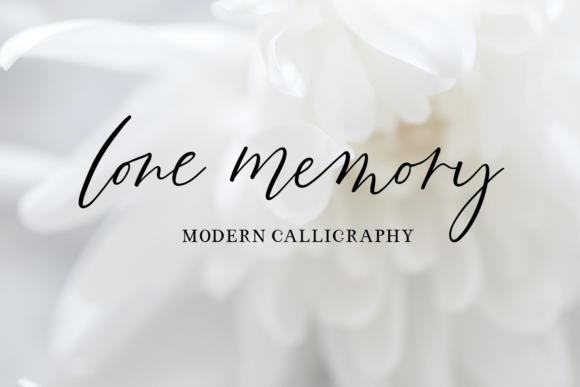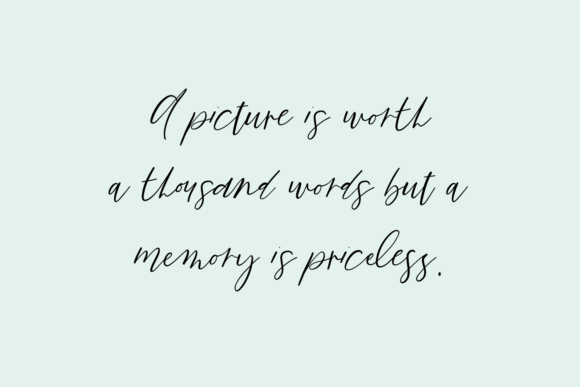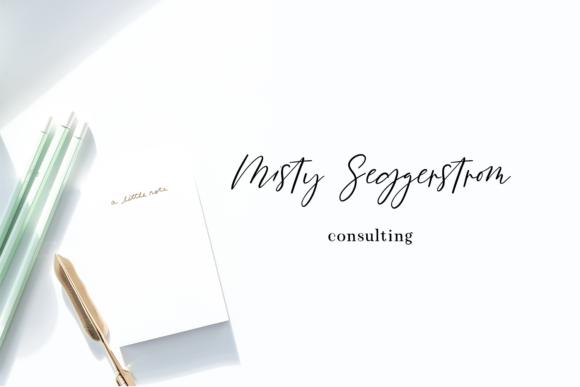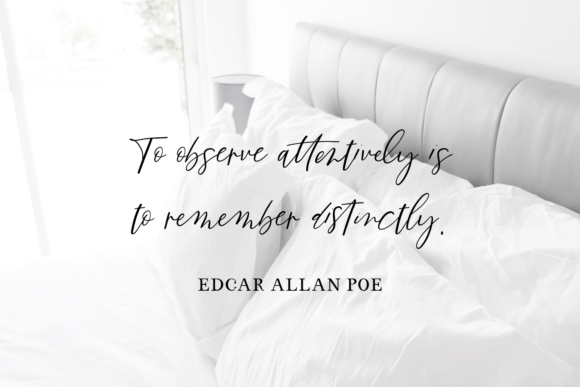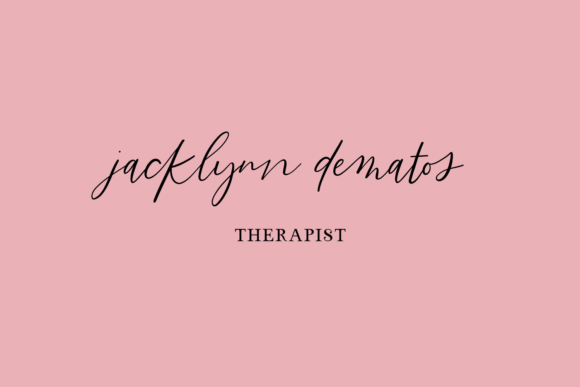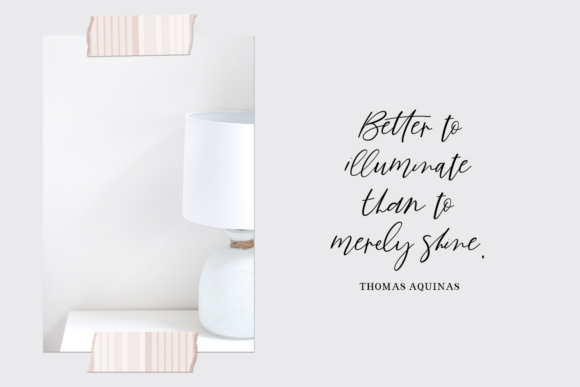
About Lone Memory Font
Lone Memory is a flowing modern calligraphy font. It is full of alternates & ligatures to ensure your project looks handwritten and created with love & attention to detail.
Lone Memory is amazing for logos, branding, wedding invitations, save the dates, website design, travel blogs, fashion blogs, & more! Use this font for your designs and explore its endless possibilities.